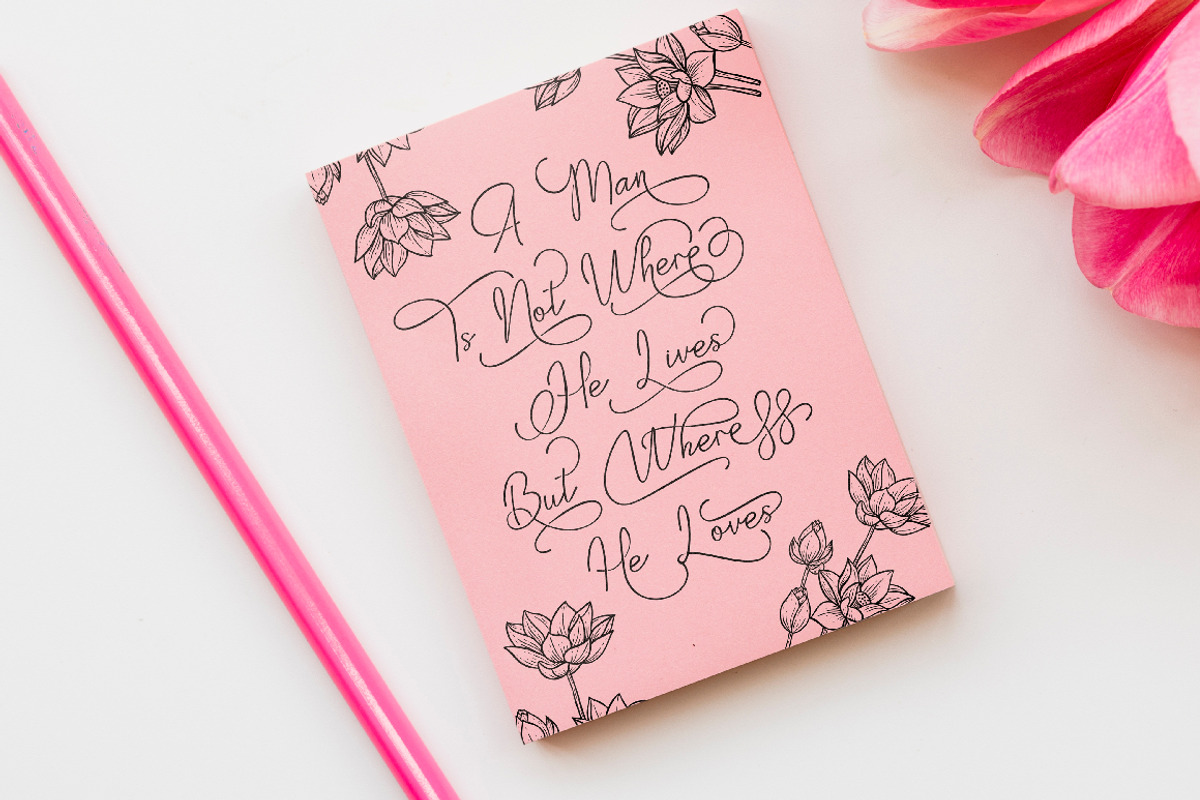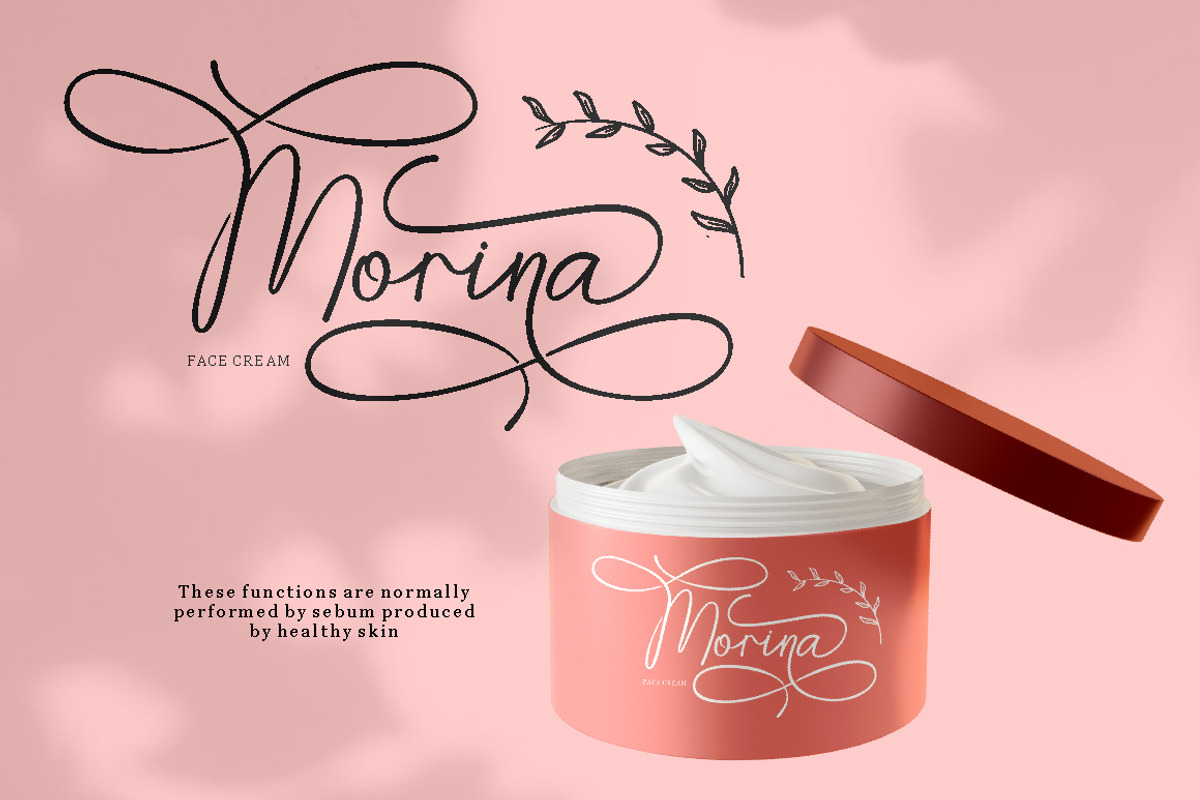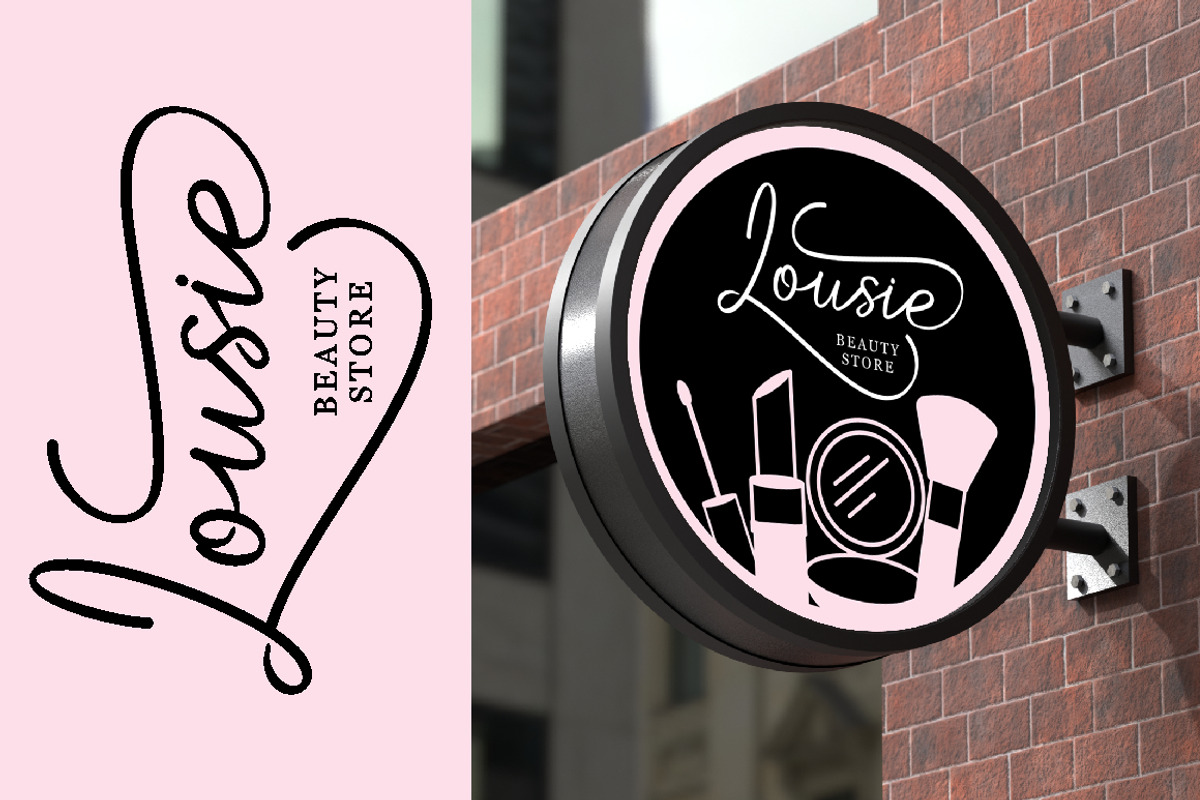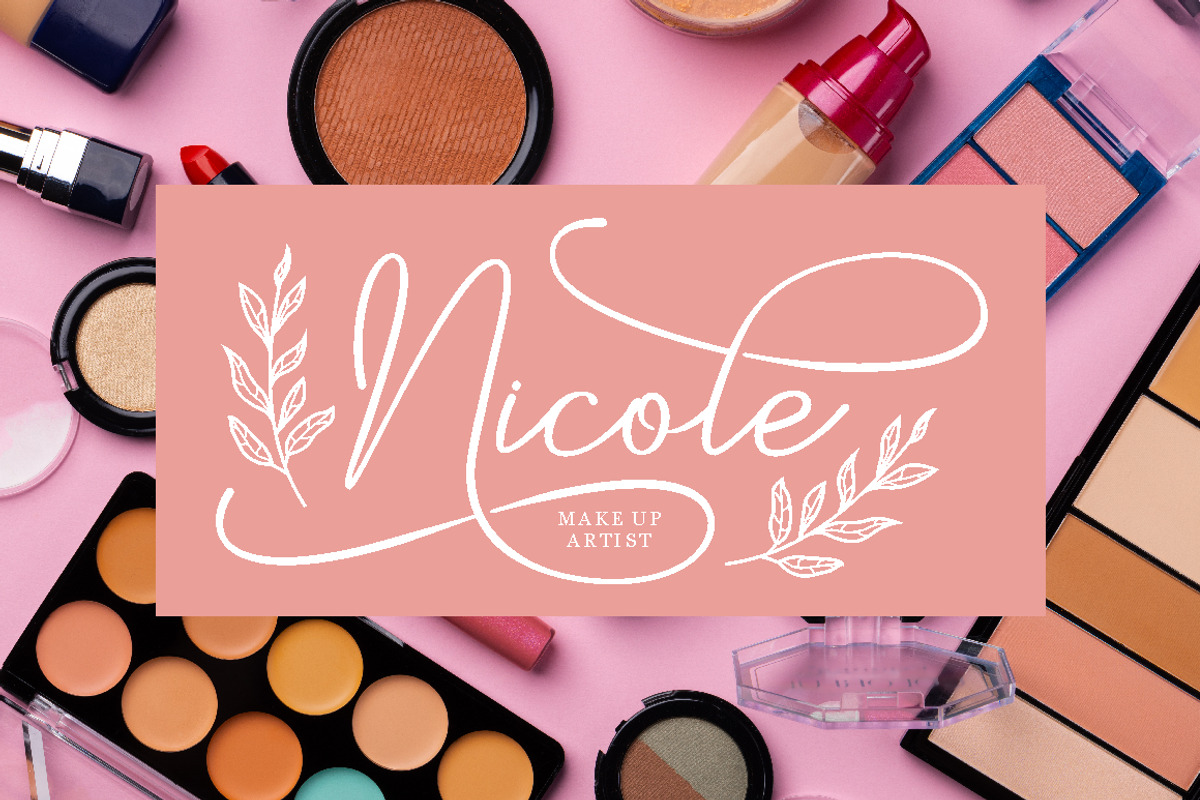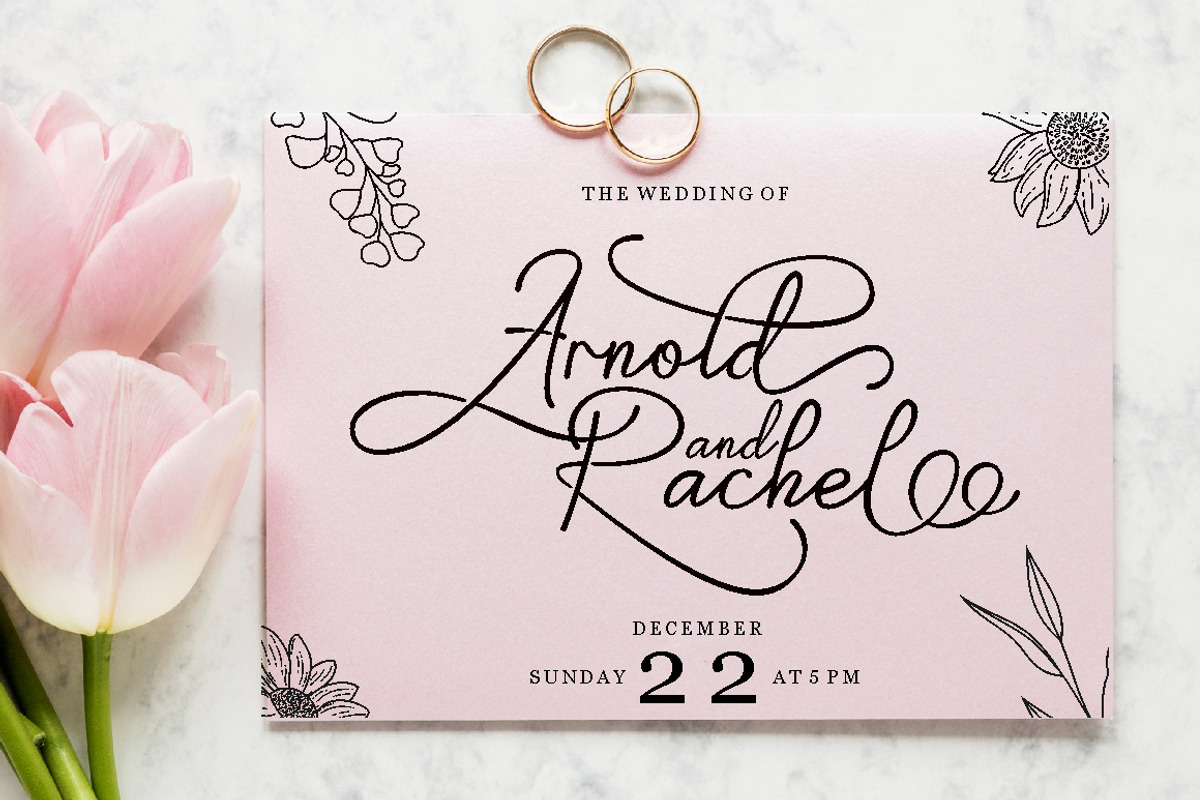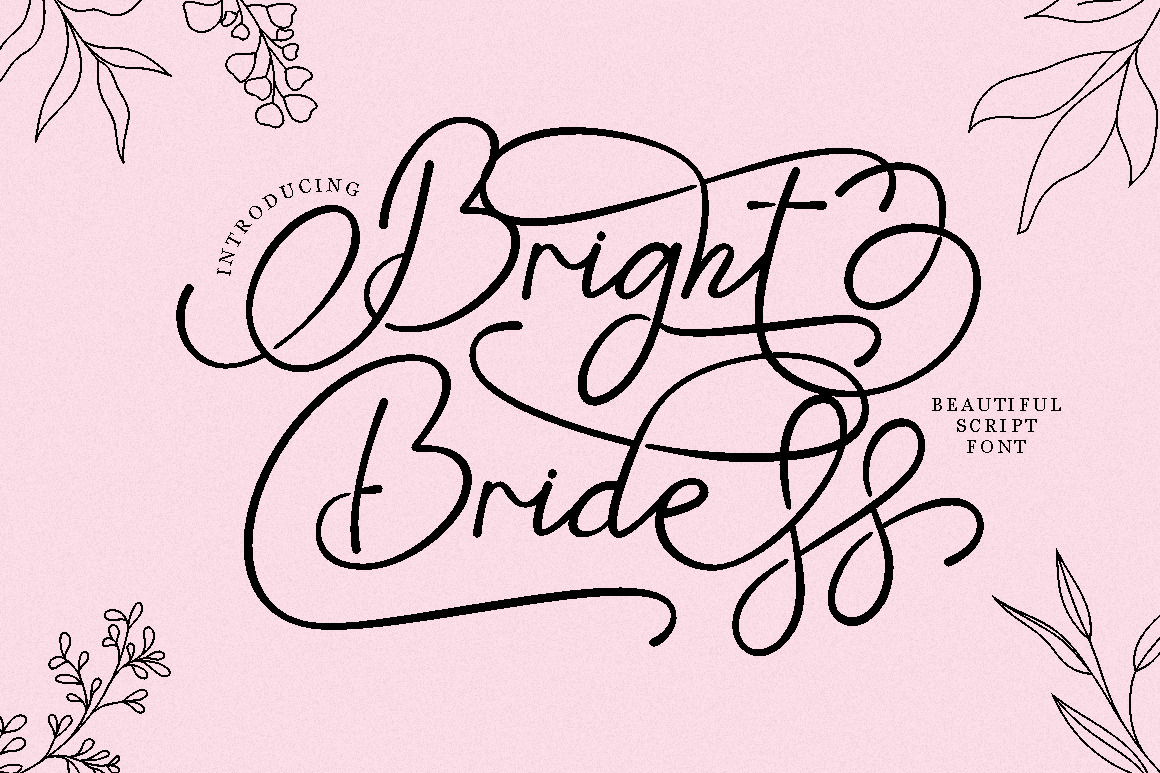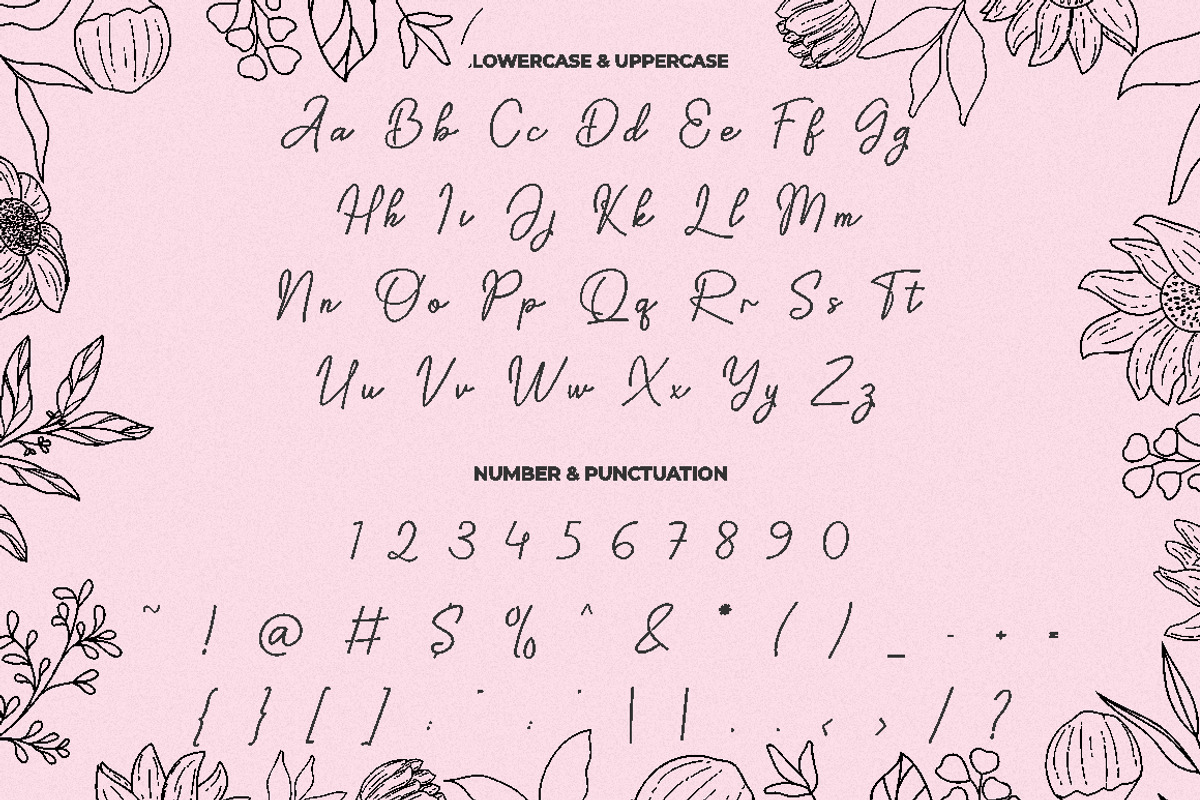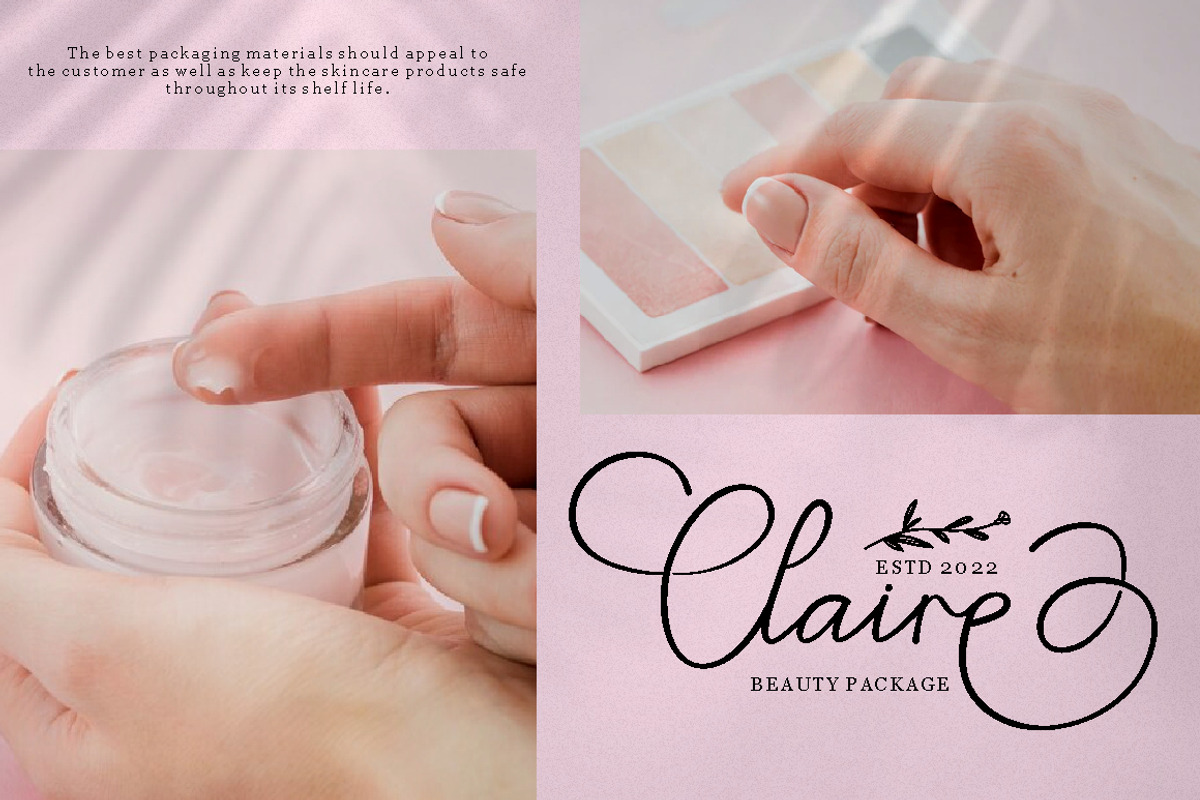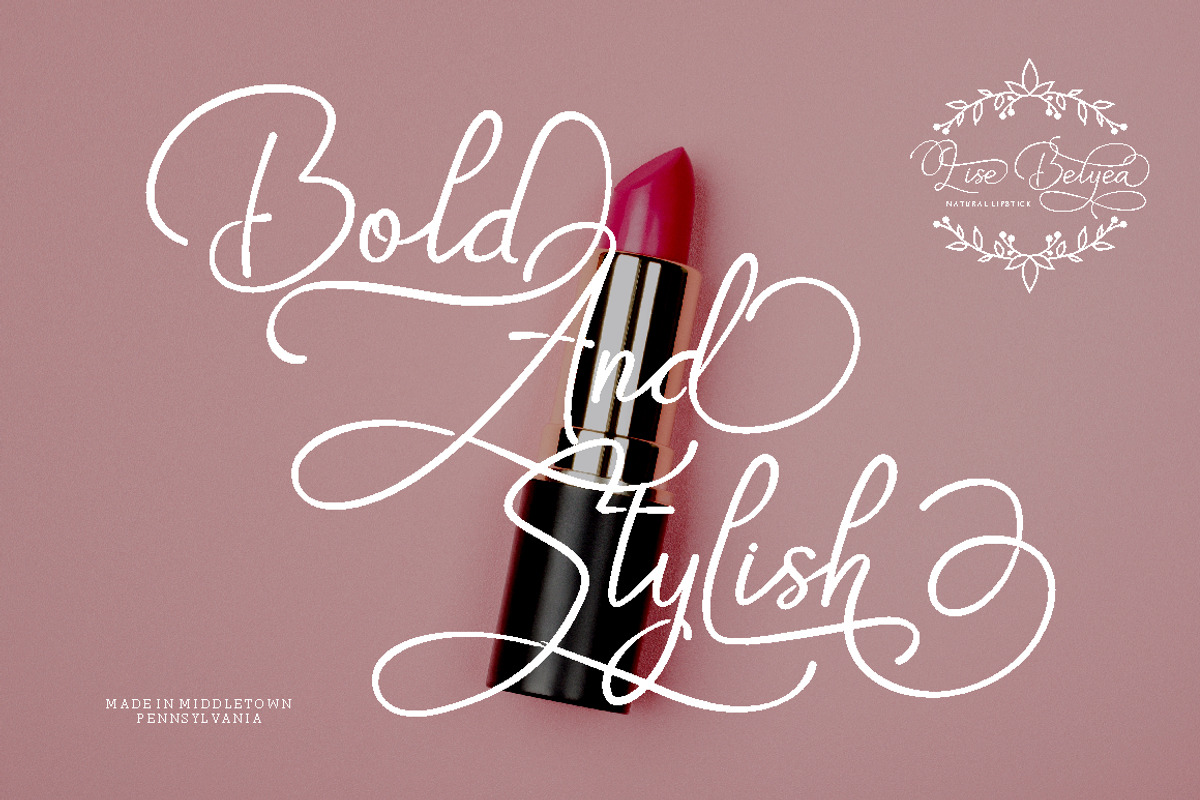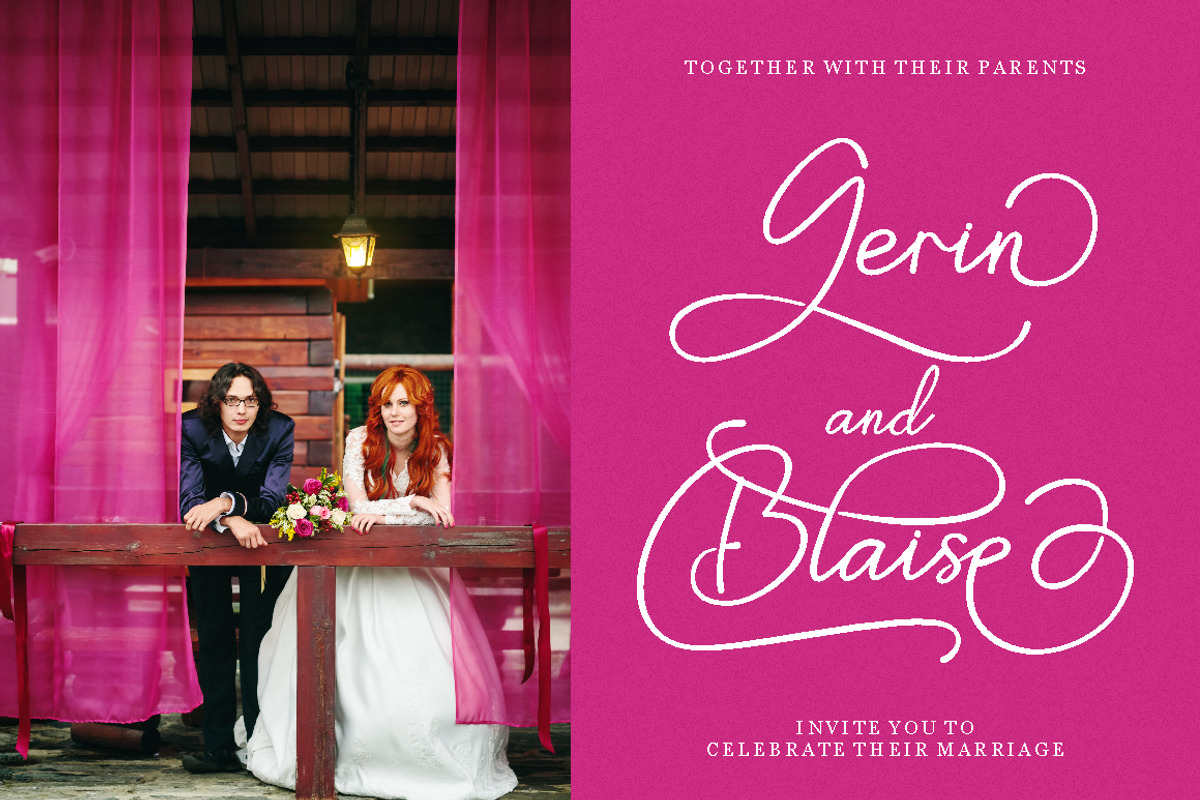
Bright Bride - Beautiful Script Font
Introducing Bright Bride, a stunning and elegant script font that exudes sophistication and beauty. This font was carefully crafted with the intention of adding a touch of glamour to any design project. Its clean lines and flowing curves create a sense of grace and charm, making it perfect for wedding invitations, branding projects, social media posts, and much more.
For those seeking a romantic and feminine touch, Bright Bride is the perfect font choice. Its delicate strokes and intricate details add a level of elegance that is sure to catch the eye of any viewer. Pair it with soft pastels or classic black and white to create a stunning contrast that will make your designs stand out.
One of the standout features of Bright Bride is its OpenType alternates and ligatures. These unique letter combinations add an extra level of creativity and customization to your designs. Plus, with full multilingual support, this font can be used for projects in a variety of languages.
In summary, Bright Bride is a beautiful and sophisticated script font with delicate strokes and intricate details. It comes with OpenType alternates and ligatures, multilingual support, and three different file formats: OTF, TTF, and WOFF. This font is perfect for wedding invitations, branding projects, social media posts, and more.